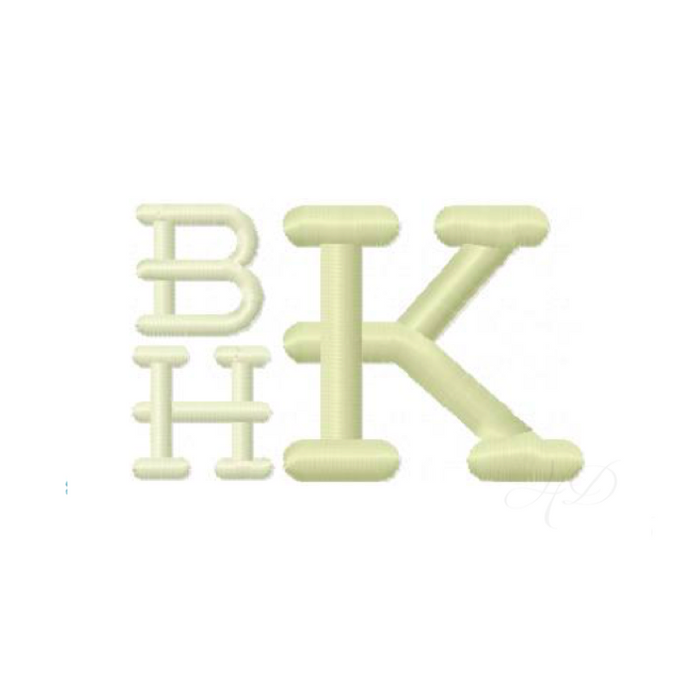
Hudson Satin Font for Embroidery
Elevate your embroidery projects with the Hudson Satin Font. This digital package includes 7 sizes in satin stitching, tailored for machine monogramming. Perfect for crafters and designers, this font set features uppercase letters A-Z in a chic style. Choose from sizes .5", .75", 1", 1.25", 1.5", 1.75", and 2" to suit your creative needs.